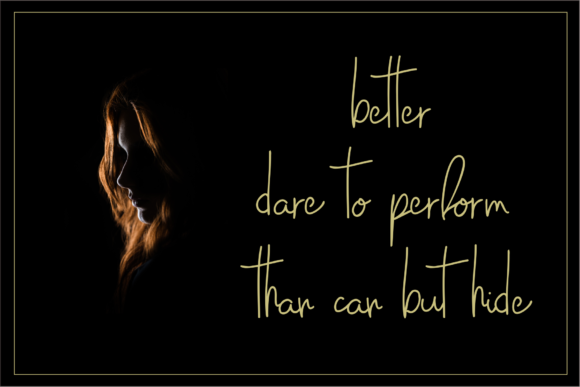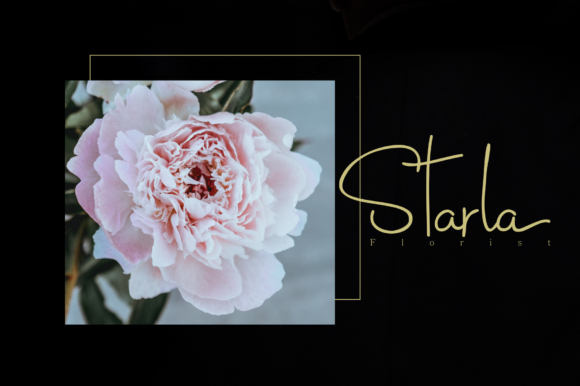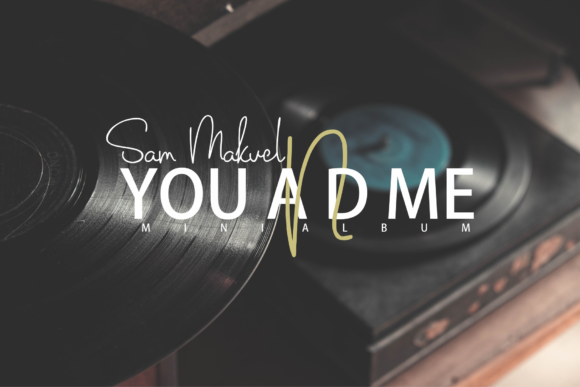
Introduction to Massali Font
Do you ever find yourself stuck in a design rut, desperately searching for the perfect font to elevate your creative project? I know I do! It’s like searching for a needle in a haystack, until you stumble upon that one font that makes everything click into place. For me, that font is the Massali Font – a stunning, thin monoline script that adds a touch of sophistication to any design.
Whether you’re working on a high-end branding project or a free download for a non-profit, the Massali Font is an invaluable resource for any designer looking to create a truly professional-looking design. With its sleek, modern aesthetic and effortless pairing capabilities, this font is a must-have for anyone serious about their design game.
So, what sets the Massali Font apart from the rest? Let’s dive in and explore the world of this incredible design resource.
Key Features of Massali Font
- High-quality design resource for creative projects, perfect for graphic designers and digital artists.
- Features a transparent background, making it ideal for use on logos, icons, and other design elements where a clear background is required.
- Available in a range of sizes and resolutions, including 300 DPI and 600 DPI, ensuring crisp and clear text at any scale.
- Unique characteristics include a modern and sleek aesthetic, with clean lines and a minimalist design.
- Designed to be highly legible and versatile, making it suitable for a wide range of applications, from branding and marketing materials to digital products and web design.
Honest Review: Massali Font
As a designer, I’m always on the lookout for high-quality design resources to elevate my creative projects. Recently, I stumbled upon the Massali Font, and I must say, it’s a fantastic addition to my design arsenal.
What works well: ✨ The Massali Font is incredibly versatile, suitable for a wide range of design applications, from digital to print. Its elegant and modern design makes it perfect for creating visually appealing headers, titles, and body text. I also appreciate the fact that it’s available for free download, making it an excellent resource for designers on a budget.
- Translucent background option, ideal for creating visually appealing headers and titles
What doesn’t work so well: ⚠️ The Massali Font is not ideal for projects that require a lot of bold or italic text, as the font can become quite difficult to read. Additionally, the font’s design can be a bit too minimalist for some projects, which may limit its creative potential.
Overall, I’m thoroughly impressed with the Massali Font. Its high-quality design, versatility, and free download make it an excellent addition to any designer’s toolkit. With a little creativity, this font can be used to create stunning designs that elevate any project.
Tips for Getting the Most Out of Massali Font
For optimal results, use Massali Font with a transparent background to create a seamless design. Experiment with different font sizes, colors, and combinations to achieve a unique look for your creative project.
Massali Font is ideal for designing logos, business cards, brochures, and other marketing materials. Its high quality and versatility make it a valuable resource for designers and non-designers alike.